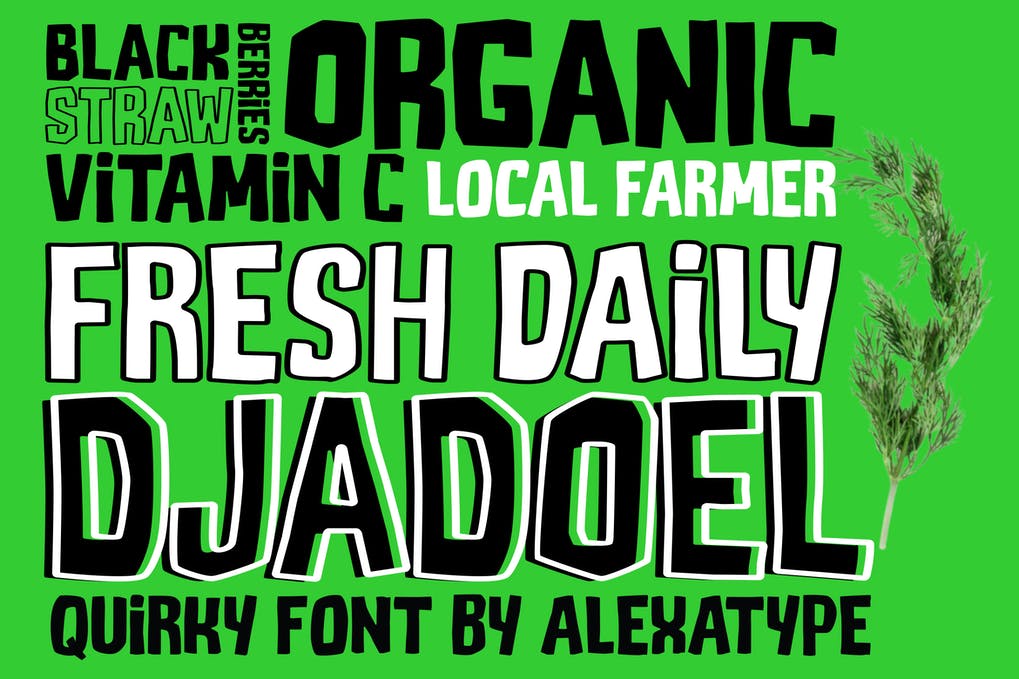
DJADOEL is a quirky font that bring good old memories and smiles to our face. Comes in 2 styles, reguler and outline. The subtle ligature between uppercase and lowercase will bring a natural touch in every project that you have.